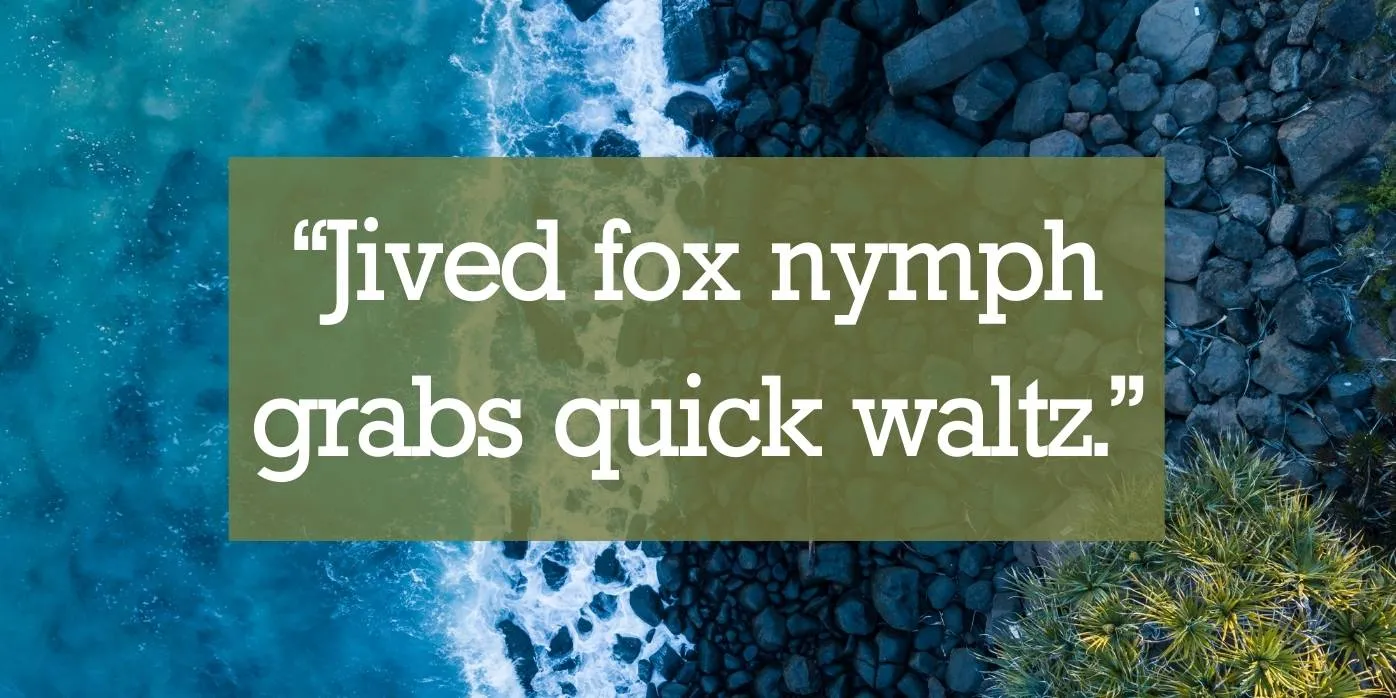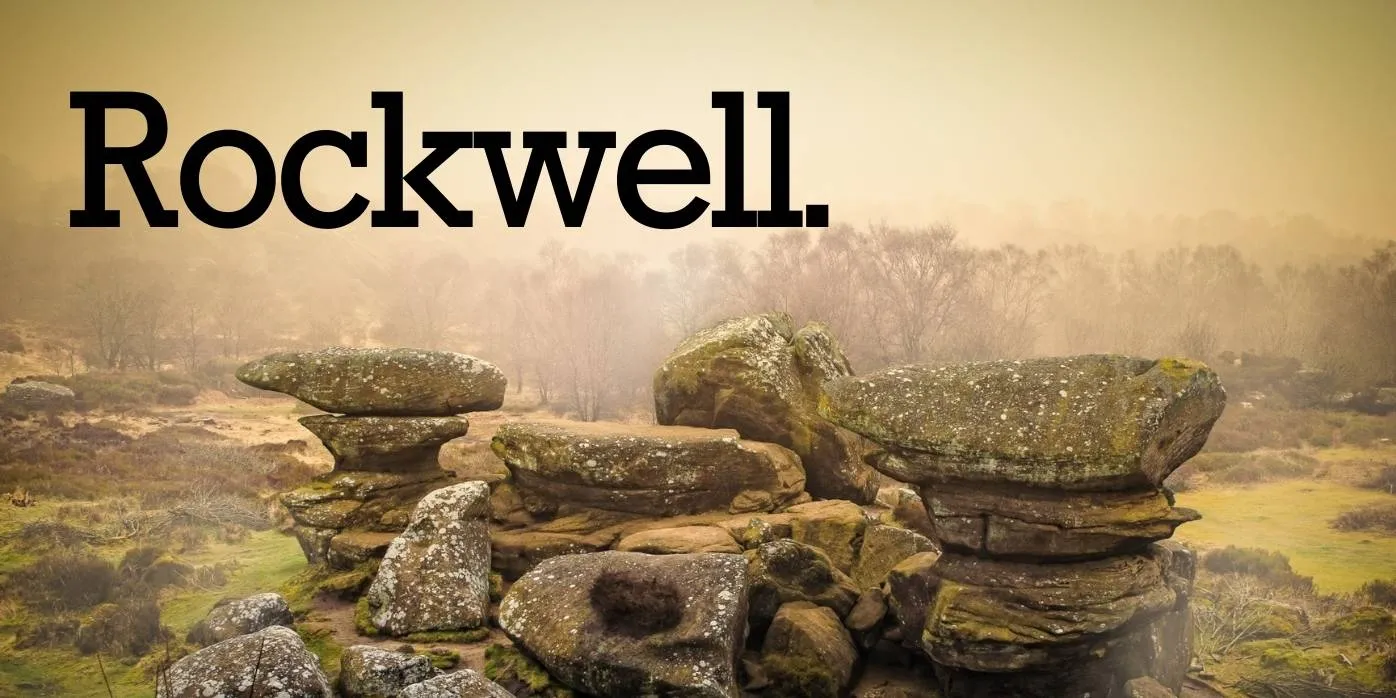
Rockwell Font
Lets We are consulting about a very famous and elegant typeface that was known as Rockwell Font. This stylish font belongs to the Slab Serif typeface. It was designed by a very well-known and intelligent designer named Frank Hinman Pierpont. In the year 1934, this marvelous font was released by Monotype.
Monotype is one of the most famous foundries in the world. This amazing font comes in various unique styles almost more than nine. It has available in 255 advanced features Glyphs. The style of this classy font family is similar to the Serif font known as Avenir next font.
This stunning font family’s most popular and common fonts are bold, extra bold, and other special weights. This simple and clean typeface is available in Google font you can download it from Google. This typeface has neat and clean textures. Its copy and paste function is mostly perfect in different designs.
This font is very suitable and perfect for various designs and titles. Designers wish to pick out such a classic and awesome font in their related interesting fields. It will provide flawless and impactful results to your clients. Your projects and plans will gain massive progress with the best response of users.